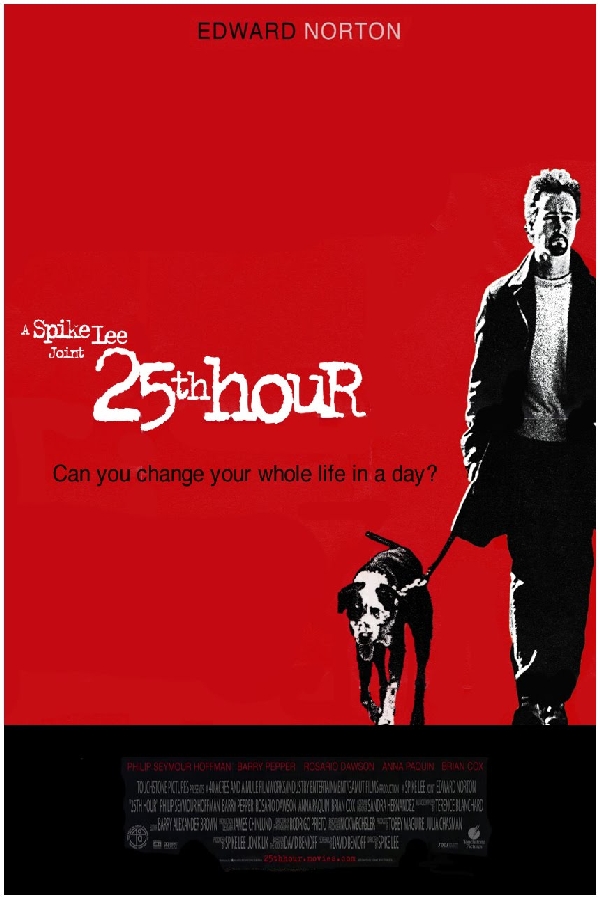
25th Hour Font
Drama25th Hour is a 2002 drama film directed by Spike Lee that explores the final day of freedom for a convicted drug dealer before he begins serving a seven-year prison sentence.
The movie title font in the poster is likely FF Trixie Heavy, designed by Dutch type designer Erik van Blokland. Trixie is a bold and gritty display typeface with 6 different weights from Light to Heavy. Find more information about FF Trixie Heavy here.